There’s something almost meditative about dot fonts. Each letter is carefully constructed from individual points, creating a texture that’s simultaneously retro and futuristic. They remind me of old-school scoreboards, vintage video games, and those satisfying lite-brite toys from childhood.
But here’s the thing – dot fonts aren’t just a nostalgia trip. They’re having a serious moment in contemporary design, popping up everywhere from tech startup logos to high-fashion editorial spreads. And trust me, when used correctly, they can transform an ordinary design into something truly memorable.
In this comprehensive guide, we’ll explore everything you need to know about dot fonts. Whether you’re hunting for the perfect dotted typeface for your next project or just curious about what makes these fonts tick, I’ve got you covered.
The Best Dot Fonts to Try in 2026
DotStudio
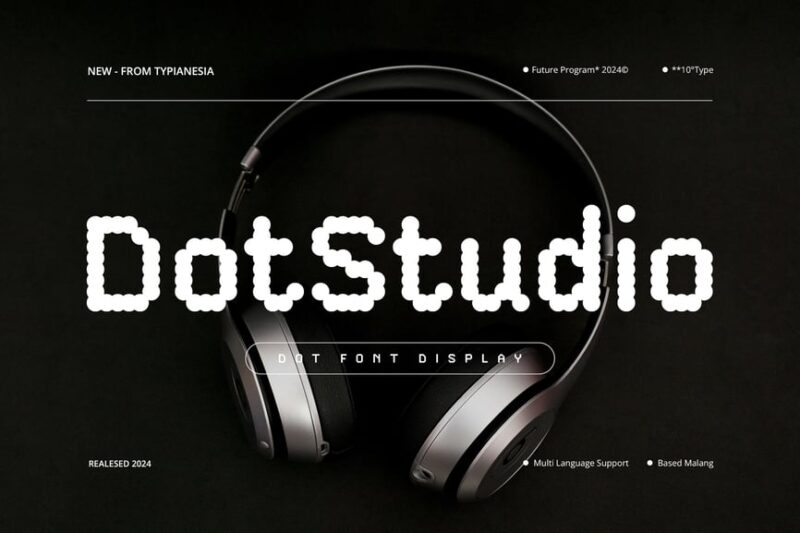
DotStudio is a cutting-edge Dot Font that embodies the essence of digital futurism. This sans-serif typeface features a unique blend of digital aesthetics and dotted elements, making it perfect for tech-savvy designers seeking a modern, forward-thinking look.
Flight
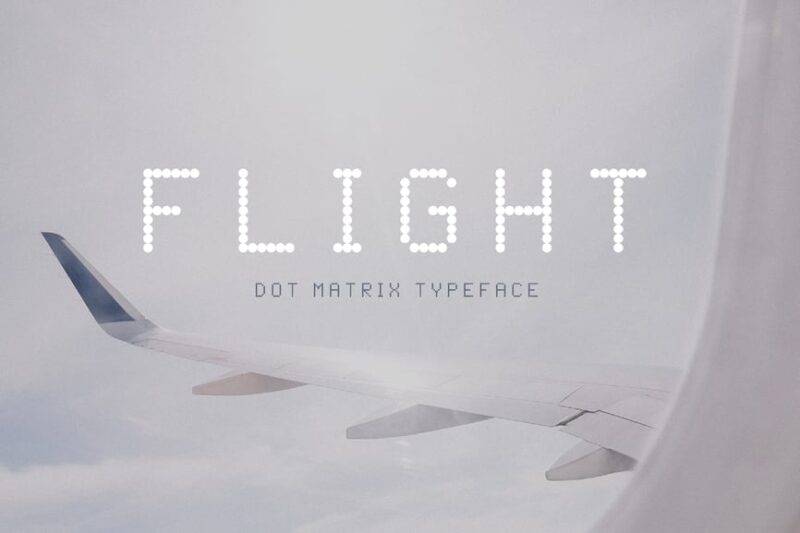
Flight is a versatile Dot Font that captures the essence of travel and movement. This dot matrix typeface offers a decorative touch with its dotted elements, making it ideal for projects that require a sense of journey or technological flair.
Belmein Disco
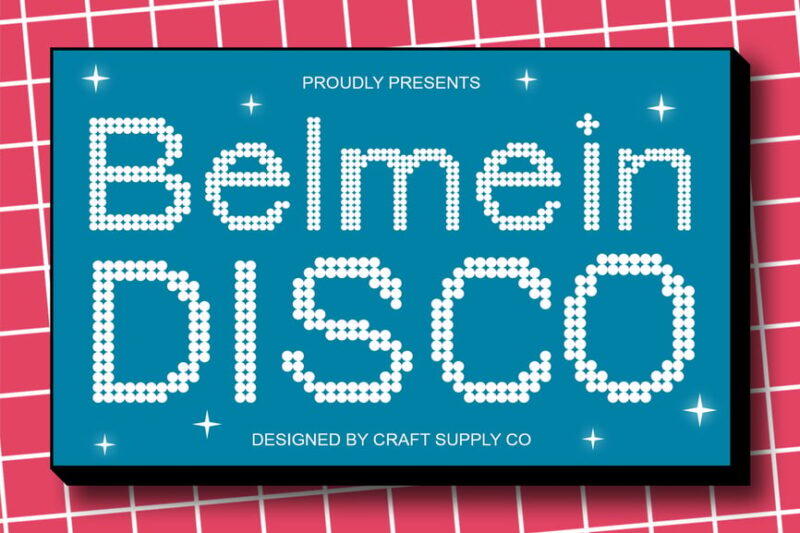
Belmein Disco is a lively Dot Font that brings the energy of the disco era to your designs. With its decorative dotted elements, this typeface is perfect for creating eye-catching headlines and retro-inspired graphics that demand attention.
Visage Polka Dot
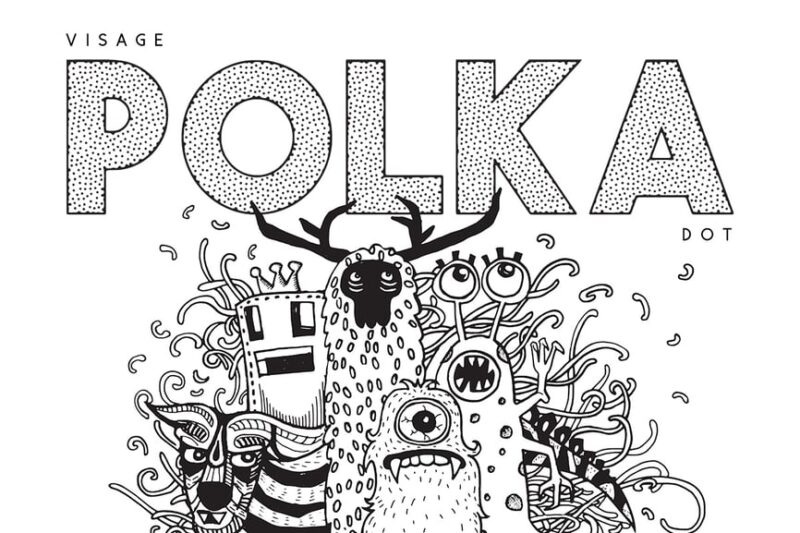
Visage Polka Dot is a playful sans-serif Dot Font that combines modern design with a touch of whimsy. This decorative typeface features polka dot elements, making it an excellent choice for designers looking to add a fun, approachable feel to their projects.
Alvera
Alvera is a sophisticated Dot Font that brings a touch of elegance to the world of dot-matrix typography. This sans typeface offers a unique blend of pixelated and matrix-inspired elements, perfect for designers seeking a modern, tech-savvy aesthetic.
Ponkadought
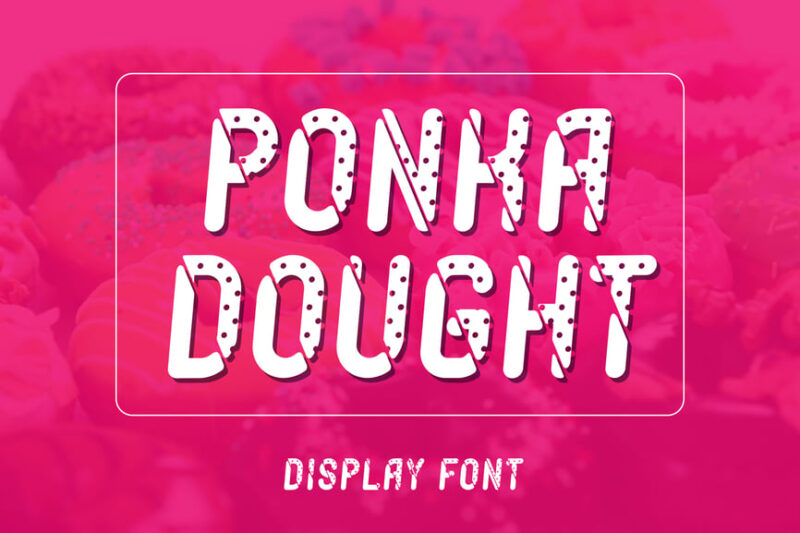
Ponkadought is a delightful Dot Font that adds a sweet touch to your designs. This sans-serif display typeface features playful dotted elements reminiscent of ice cream toppings, making it perfect for food-related projects or designs that require a fun, approachable feel.
BORSE
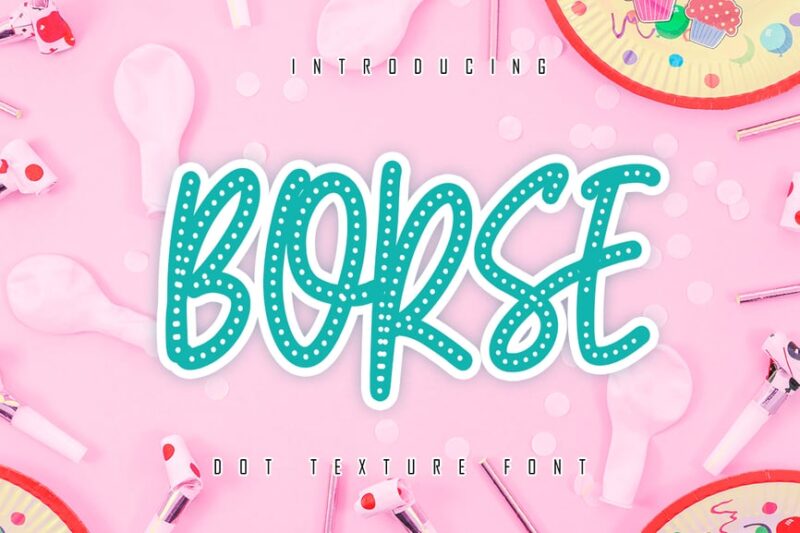
BORSE is a versatile Dot Font that combines display, script, and sans-serif styles. This decorative typeface features dotted elements that add a unique touch to branding projects, making it an excellent choice for designers looking to create memorable logos and headlines.
Halftone Sans
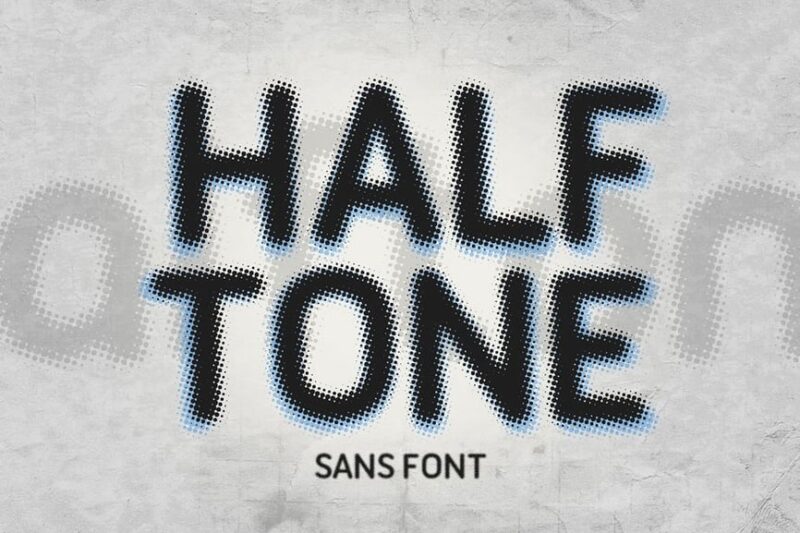
Halftone Sans is a striking Dot Font that brings the classic halftone effect to typography. This sans-serif typeface features dotted elements that create a unique visual texture, perfect for designers looking to add depth and intrigue to their projects.
Bengal Disco
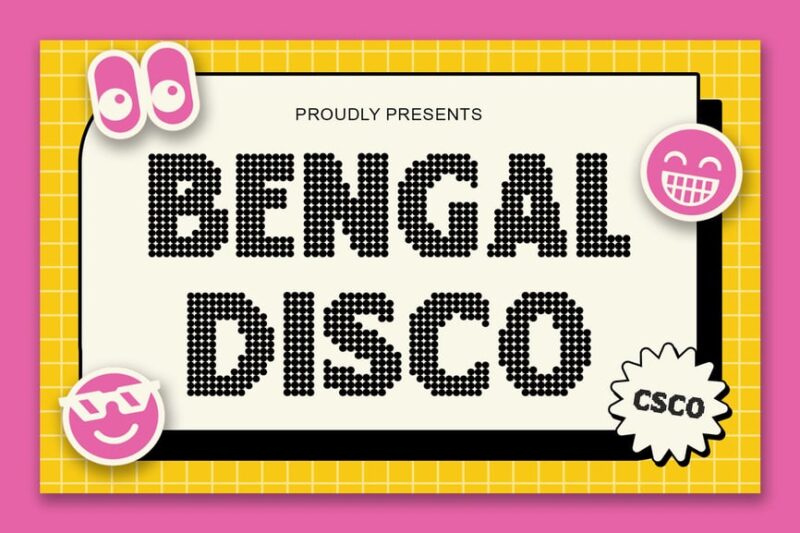
Bengal Disco is a vibrant Dot Font that captures the essence of disco culture. This decorative typeface features dotted elements that create a sense of movement and energy, making it ideal for projects that require a bold, retro-inspired look.
Dotrix
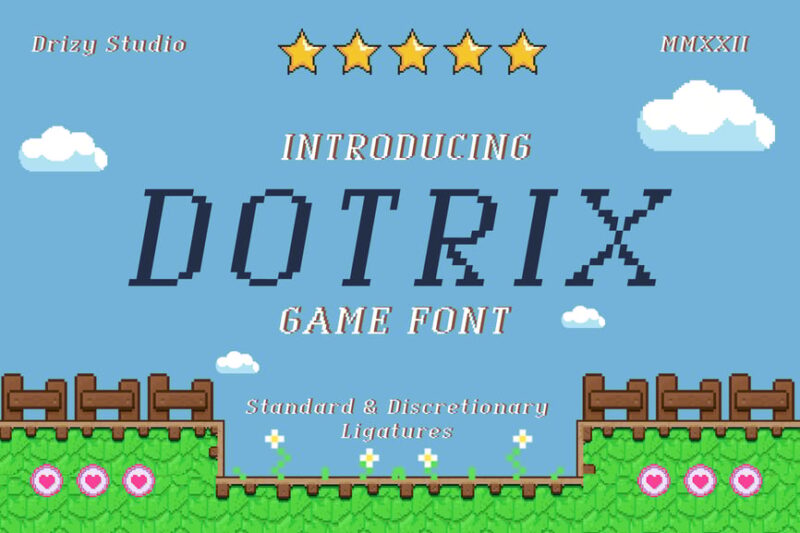
Dotrix is a unique Dot Font that brings a touch of retro gaming to modern design. This serif typeface features dotted elements inspired by 8-bit graphics, making it perfect for designers looking to add a nostalgic, tech-inspired feel to their projects.
Pixel Bit
Pixel Bit is a cutting-edge Dot Font that embodies the future of digital typography. This sans-serif display typeface features pixelated elements and geometric shapes, making it ideal for designers seeking a modern, tech-forward aesthetic in their projects.
Capsplay
Capsplay is a dynamic Dot Font that brings a futuristic flair to your designs. This sans-serif typeface combines pixelated elements with a neon-inspired look, perfect for creating eye-catching headlines and graphics with a modern, tech-savvy edge.
Bafline Disco
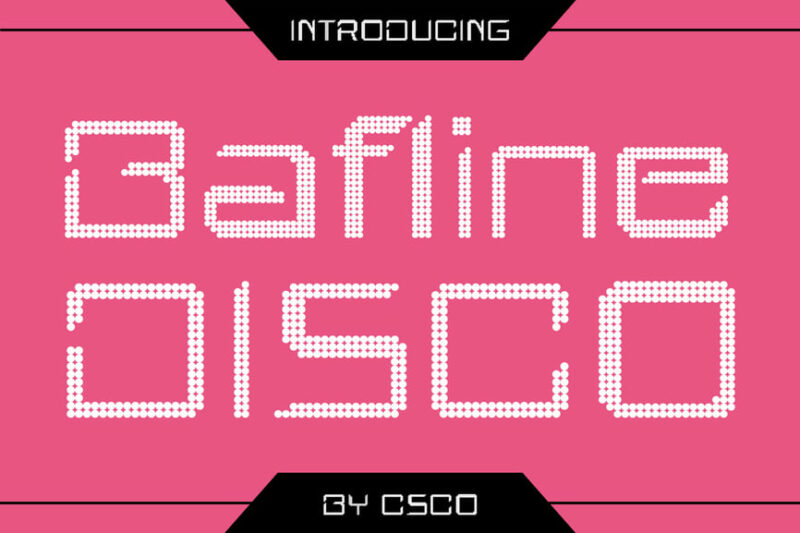
Bafline Disco is a striking Dot Font that combines the energy of disco with a modern neon aesthetic. This decorative typeface features dotted elements that create a unique visual texture, ideal for designers looking to add a touch of retro-futurism to their projects.
Briallen Disco
Briallen Disco is a dynamic Dot Font that brings the essence of digital timekeeping to typography. This decorative typeface features dotted elements inspired by digital clock displays, making it perfect for designs that require a modern, tech-inspired look.
Bartine Disco
Bartine Disco is a nostalgic Dot Font that captures the spirit of retro disco culture. This decorative typeface features dotted elements that create a sense of movement and energy, ideal for designers looking to add a touch of vintage flair to their projects.
Neo Rizon
Neo Rizon is a bold Dot Font that combines 8-bit aesthetics with neon-inspired design. This modern display typeface features expanded characters and dotted elements, making it perfect for creating eye-catching headlines and graphics with a futuristic edge.
Alavine Disco
Alavine Disco is a vibrant Dot Font that brings a digital twist to disco-inspired typography. This decorative typeface features dotted elements that create a unique visual texture, ideal for designers looking to add a touch of retro-futurism to their projects.
Arbane Disco
Arbane Disco is a striking Dot Font that combines marquee-style typography with 3D effects. This decorative typeface features dotted elements that create depth and dimension, perfect for designers looking to create eye-catching logos and headlines with a disco-inspired flair.
Arshine Disco
Arshine Disco is a bold Dot Font that brings a punk edge to disco-inspired typography. This decorative typeface features dotted elements and a modern take on the Neue Haas style, making it ideal for designers looking to create edgy, attention-grabbing designs.
Roinert
Roinert is a futuristic Dot Font that embodies the essence of industrial design. This decorative typeface features dotted elements that create a unique visual texture, perfect for designers looking to add a touch of sci-fi or tech-inspired aesthetics to their projects.
Ascella Disco
Ascella Disco is a lively Dot Font that captures the energy of party culture. This decorative typeface features dotted elements that create a sense of movement and excitement, making it ideal for designers working on logos and graphics for event-related projects.
Albercio Disco
Albercio Disco is a vibrant Dot Font that brings the spirit of nightclub culture to typography. This decorative typeface features dotted elements that create a unique visual rhythm, perfect for designers looking to add a touch of disco flair to their projects.
Alvinus Disco
Alvinus Disco is a dynamic Dot Font that combines digital clock aesthetics with disco-inspired design. This decorative typeface features dotted elements that create a sense of technological precision, ideal for designers seeking a retro-futuristic look in their work.
Brendie Disco
Brendie Disco is a whimsical Dot Font that adds a touch of fantasy to disco-inspired typography. This decorative typeface features playful dotted elements, making it perfect for designers looking to create eye-catching headlines and graphics with a fun, imaginative twist.
Balthis Disco
Balthis Disco is an eye-catching Dot Font that demands attention with its unique design. This decorative typeface features bold dotted elements that create a striking visual impact, ideal for designers looking to make a statement in their disco-inspired projects.
Calben Disco
Calben Disco is a dynamic Dot Font that brings a glitch-inspired aesthetic to band typography. This decorative typeface features distorted dotted elements, making it perfect for designers working on music-related projects or seeking to add an edgy, digital feel to their designs.
Brivane Disco
Brivane Disco is a sleek Dot Font that combines digital precision with disco flair. This decorative typeface features carefully crafted dotted elements, ideal for designers looking to create modern, tech-inspired graphics with a touch of retro charm.
Angeris Disco
Angeris Disco is a playful Dot Font that brings a sense of fun to disco-inspired typography. This decorative typeface features lively dotted elements, perfect for designers looking to add a touch of whimsy and energy to their projects.
Catelyn Disco
Catelyn Disco is a sophisticated Dot Font that adds a touch of elegance to digital-inspired serif typography. This decorative typeface features refined dotted elements, making it ideal for designers seeking to create a modern, tech-savvy look with a classic twist.
Bamboly Disco
Bamboly Disco is a bold Dot Font that makes a strong statement in disco-inspired design. This decorative typeface features prominent dotted elements, perfect for designers looking to create eye-catching headlines and graphics with a powerful, retro-futuristic feel.
Badoney Disco
Badoney Disco is a stylish Dot Font that brings a touch of sophistication to disco-inspired typography. This decorative typeface features elegant dotted elements, making it ideal for designers looking to create refined, yet eye-catching designs with a retro flair.
Bordie Disco
Bordie Disco is a nostalgic Dot Font that captures the essence of vintage retro design. This decorative typeface features dotted elements that evoke a sense of nostalgia, perfect for designers looking to create authentic, disco-inspired graphics with a timeless appeal.
Laveda Disco
Laveda Disco is a melodic Dot Font that brings musical inspiration to logo design. This decorative typeface features rhythmic dotted elements, making it ideal for designers working on music-related projects or seeking to add a harmonious touch to their disco-inspired creations.
Ansela Disco
Ansela Disco is a vibrant sans-serif Dot Font that embodies the energy of disco culture. This typeface features lively dotted elements that create a sense of movement and excitement, perfect for designers looking to add a bold, dynamic touch to their projects.
Redika Disco
Redika Disco is a striking Dot Font that brings a 3D twist to logo design. This decorative typeface features dimensional dotted elements, making it ideal for designers looking to create eye-catching, disco-inspired logos and graphics with depth and visual impact.
Ravio Disco
Ravio Disco is a dynamic Dot Font that captures the essence of DJ culture. This decorative typeface features energetic dotted elements and 3D-inspired effects, perfect for designers working on music-related projects or seeking to create bold, attention-grabbing logos.
Belony Disco
Belony Disco is a luminous Dot Font that brings the glow of neon lights to party-inspired typography. This decorative typeface features vibrant dotted elements, making it ideal for designers looking to create eye-catching graphics with a festive, disco-inspired atmosphere.
Calley Disco
Calley Disco is a tech-savvy Dot Font that brings a modern edge to logo design. This decorative typeface features innovative dotted elements, perfect for designers working on technology-related projects or seeking to create cutting-edge, disco-inspired logos with a futuristic feel.
The History Behind Dot Fonts
Dot fonts have a fascinating origin story that spans multiple industries and technologies. Their roots trace back to several key developments:
Early Printing Technology: Before modern printing, halftone techniques used dots of varying sizes to create the illusion of continuous tone in printed images. This same principle influenced early typographic experimentation.
Digital Display Limitations: In the early days of digital displays – think LED scoreboards, airport flight information boards, and the first computer monitors – dots were literally all designers had to work with. These technological constraints birthed iconic dot matrix fonts that defined an era.
Video Game Culture: Remember the chunky, pixelated text in classic arcade games? Those weren’t just technical limitations – they became an aesthetic. Fonts like those used in Space Invaders or Pac-Man created a visual language that still resonates today.
Newspaper and Magazine Printing: The halftone printing process used by newspapers created a distinctive dotted appearance that became synonymous with journalism and credibility.
What started as technical necessity has evolved into intentional design choice. Modern dot fonts often pay homage to these origins while pushing the concept in new, creative directions.
What Makes Dot Fonts So Appealing?
So what is it about dot fonts that keeps designers coming back? Several factors contribute to their enduring appeal:
Visual Texture: Dot fonts add an immediate sense of texture to designs. Even at smaller sizes, the stippled quality creates visual interest that solid fonts simply can’t match. Your eye naturally wants to linger on them.
Nostalgia Factor: For anyone who grew up in the 80s, 90s, or early 2000s, dot fonts trigger instant nostalgia. They harken back to early video games, digital clocks, and the dawn of personal computing. That emotional connection is powerful in design.
Tech Credibility: Dot fonts have an inherent “tech-forward” quality. They feel digital, precise, and systematic – perfect for brands in tech, gaming, data, or innovation-focused industries.
Uniqueness: Let’s be honest – everyone and their mother is using the same handful of trendy sans serifs. Dot fonts offer a way to stand out while maintaining excellent readability.
Scalability: Interestingly, many dot fonts actually scale quite well. The dot pattern can create a sort of natural anti-aliasing effect that looks crisp at various sizes.
Where to Use Dot Fonts (And Where to Avoid Them)
Like any specialized typeface, dot fonts shine in certain contexts and fall flat in others. Here’s where they work best:
Perfect Uses for Dot Fonts:
Tech and Gaming Brands: Dot fonts are a natural fit for technology companies, esports organizations, gaming studios, and software brands. They communicate innovation and digital expertise.
Retro Designs: Creating something with a vintage 80s or 90s vibe? Dot fonts are your secret weapon. They instantly transport viewers to the era of neon, arcade games, and early computing.
Data Visualization: The technical quality of dot fonts makes them excellent for infographics, charts, and data-heavy designs where you want to emphasize precision and accuracy.
Display Headers: Dot fonts make fantastic headline fonts. Use them in large sizes where the dot pattern becomes a design element itself, creating maximum visual impact.
Sports Graphics: The scoreboard association makes dot fonts perfect for sports-related designs, from team logos to ticket designs to stadium signage.
Editorial Design: Fashion magazines and design publications love using dot fonts for their textural quality and visual intrigue.
Where to Avoid Dot Fonts:
Body Text: This is the big one. Dot fonts are almost always a poor choice for paragraph text. The pattern becomes exhausting to read over multiple sentences, causing eye strain and frustration.
Small Print: At very small sizes, the dots can blur together or become illegible. Save dot fonts for applications where they’ll be displayed at readable sizes.
Formal Corporate Communication: Legal documents, formal proposals, and traditional corporate materials usually require more conservative typography. A dot font might undermine the serious tone you’re trying to establish.
Accessibility-Critical Applications: For designs that need to meet strict accessibility standards or serve users with visual impairments, the reduced clarity of dot fonts can be problematic.
How to Choose the Right Dot Font
With so many dot fonts available, how do you pick the perfect one for your project? Consider these factors:
Dot Size and Spacing: Larger dots with more spacing between them create a bolder, more playful effect. Smaller, tightly-packed dots read as more refined and sophisticated. Choose based on your design’s personality.
Complete or Outline: Do you want dots filling the entire letter shape, or just outlining it? Filled dot fonts feel more solid and traditional, while outline versions feel more delicate and modern.
Regularity: Perfectly uniform dots arranged in a grid create a technical, systematic feel. Irregular or hand-placed dots add organic warmth and personality.
Weight Options: Just like traditional fonts, some dot fonts come in multiple weights. Having options from light to bold gives you more flexibility in your designs.
Character Set: Make sure your chosen dot font includes all the characters you need – numbers, punctuation, special characters, and any international letters required for your project.
Pairing Dot Fonts With Other Typefaces
Dot fonts rarely work alone. Here’s how to pair them effectively:
The Classic Combo: Use a dot font for headlines and a clean, simple sans serif (like Helvetica, Open Sans, or Inter) for body text. This creates hierarchy while maintaining readability.
Double Down on Tech: Pair a dot font with a monospace font for maximum tech credibility. This combination screams “digital” and works beautifully for coding-related content or tech brands.
Retro Remix: Combine a dot font with other vintage-inspired typefaces – think chunky slab serifs or groovy 70s scripts. This amplifies the nostalgic effect.
Elegant Contrast: Create tension by pairing a technical dot font with an elegant serif like Garamond or a sophisticated script. This unexpected combination can be stunning in editorial design.
Keep It Simple: When in doubt, let the dot font be the star. Choose understated, neutral supporting typefaces that won’t compete for attention.
Design Tips for Working With Dot Fonts
Ready to incorporate dot fonts into your work? Keep these pro tips in mind:
Size Matters: Dot fonts need room to breathe. Don’t be shy about going big – the larger the type, the more impressive the dot pattern becomes.
Color Choice: Dot fonts look fantastic in bold, saturated colors. They can also work beautifully in duotone or with gradient fills that play across the dot pattern.
Background Considerations: Make sure there’s enough contrast between your dot font and its background. The gaps between dots can create readability issues if the contrast is too low.
Spacing Adjustments: You may need to adjust letter spacing (tracking) more than you would with solid fonts. The dots can sometimes make letters feel cramped or too separated.
Test at Multiple Sizes: Always preview your dot font at the actual size it’ll be used. What looks perfect at poster size might be illegible at business card dimensions.
Animation Potential: Dot fonts are incredibly fun to animate. Each dot can move, pulse, or change color independently, creating mesmerizing motion graphics.
Dot Fonts in Modern Design Trends
Dot fonts aren’t stuck in the past – they’re evolving with contemporary design trends:
Variable Dot Density: Modern dot fonts are getting sophisticated, using varying dot sizes and densities to create depth, dimension, and even simulate 3D effects.
Color Dots: Some designers are creating dot fonts where each dot can be a different color, enabling rainbow effects or brand-specific color patterns.
Hybrid Styles: We’re seeing fonts that combine solid areas with dotted sections, or that use dots strategically to create unique visual effects.
Generative Design: Designers are using code to create custom dot fonts where the dot pattern is generated algorithmically, creating unique variations every time.
Free vs. Premium Dot Fonts
Should you invest in a premium dot font or stick with free options? Here’s the breakdown:
Free Dot Fonts: There are some excellent free dot fonts available, especially if you’re working on personal projects or have a limited budget. Sites like Google Fonts, Font Squirrel, and DaFont offer solid options.
However, free fonts often have limitations – fewer weights, incomplete character sets, or licensing restrictions for commercial use. Always read the license carefully.
Premium Dot Fonts: Investing in a premium dot font usually gets you better craftsmanship, more weight options, complete character sets, and clear commercial licensing. If you’re working on client projects or building a brand, premium fonts are worth the investment.
Premium dot fonts also tend to have better kerning, more refinement in the dot placement, and overall higher quality that shows in the final design.
Common Dot Font Mistakes to Avoid
Learn from others’ mistakes:
Using Them for Body Copy: I can’t stress this enough – dot fonts are for display use only. Your readers will thank you for not making them wade through paragraphs of dotted text.
Ignoring Readability: Just because a dot font looks cool doesn’t mean it’s readable. Always test legibility before committing to a design.
Overuse: Dot fonts are like hot sauce – a little goes a long way. Use them as accents and focal points, not on every element of your design.
Poor Size Choices: Using dot fonts too small makes them look muddy. Too large and they can feel overwhelming. Find the sweet spot through testing.
Clashing Aesthetics: Make sure your dot font matches your overall design direction. A retro 8-bit dot font won’t work in an elegant wedding invitation (unless you’re going for ironic, which is a whole different conversation).
Dot Fonts in Different Industries
Tech Startups: Dot fonts help tech companies look innovative and forward-thinking. They’re particularly popular in AI, data analytics, and cybersecurity branding.
Gaming: From mobile games to major esports organizations, dot fonts tap into gaming’s digital roots while looking contemporary and exciting.
Sports: The scoreboard connection makes dot fonts natural for sports teams, athletic brands, and sporting events.
Fashion: High-fashion brands use dot fonts to add an unexpected technical edge to editorial spreads and advertising campaigns.
Music: Electronic music artists and festivals frequently use dot fonts to convey their digital, futuristic sound.
Creating Your Own Dot Font
Feeling ambitious? Creating a custom dot font is actually more accessible than you might think:
Font creation software like FontForge (free) or Glyphs (premium) makes it possible to design your own dot fonts. Start by sketching your letterforms, then place dots strategically to form each character.
The key is consistency – maintain the same dot size, spacing pattern, and overall style across all letters. It’s painstaking work, but the result is a truly unique typeface that no one else has.
Alternatively, you can commission a type designer to create a custom dot font for your brand. This ensures professional quality while giving you exclusive rights to a distinctive typeface.
Common Questions About Dot Fonts
Are dot fonts readable?
At display sizes (headlines, titles, logos), yes! The human eye is remarkably good at connecting the dots (literally) to perceive complete letterforms. However, at small sizes or in body text, dot fonts become difficult to read and should be avoided.
Can I use dot fonts for my logo?
Absolutely, as long as your logo will primarily be used at sizes where the dots remain clear and recognizable. Consider how your logo will look at small sizes – like on a business card or mobile app icon – before committing to a dot font.
Do dot fonts work in print?
Yes! In fact, dot fonts can look fantastic in print, especially at larger sizes where the dot pattern creates interesting texture on paper. Just ensure your printer’s resolution is high enough to render the dots clearly.
Are dot fonts accessible?
Dot fonts can present accessibility challenges. The reduced clarity compared to solid fonts may be difficult for users with visual impairments. If accessibility is critical, use dot fonts sparingly and always provide alternative text or ensure sufficient contrast and size.
What’s the difference between dot fonts and pixelated fonts?
Pixelated fonts are made up of square pixels arranged in a grid, while dot fonts use circular dots. Pixelated fonts typically have a more angular, blocky appearance reminiscent of early computer graphics, while dot fonts can range from technical to organic depending on the dot arrangement.
The Future of Dot Fonts
Where are dot fonts headed? If current trends are any indication, we’re just scratching the surface:
AI-Generated Dot Patterns: Machine learning is enabling designers to create dot fonts with incredibly sophisticated patterns that would be impossible to place by hand.
Responsive Dot Density: Imagine fonts where the dot pattern adjusts based on viewing distance or screen size – tighter for small displays, more dramatic for large ones.
3D Dot Typography: We’re seeing experiments with dot fonts that exist in three-dimensional space, with dots placed at varying depths to create truly sculptural letterforms.
Interactive Dots: In web and app design, dots that respond to user interaction – pulsing, moving, or changing color on hover or click – are creating engaging typographic experiences.
The beauty of dot fonts is that they’re simultaneously retro and futuristic. They remind us where digital design came from while pointing toward where it’s going.
Conclusion: Making Your Mark With Dot Fonts
Dot fonts are more than just a stylistic choice – they’re a powerful design tool that can elevate your work from ordinary to extraordinary. Whether you’re channeling retro nostalgia, establishing tech credibility, or simply looking for something visually distinctive, the right dot font can make all the difference.
The key is using them thoughtfully. Reserve dot fonts for display purposes where they can shine – headlines, logos, posters, and other high-impact applications. Pair them with readable body fonts. Test them at actual size. And always, always prioritize your audience’s experience.
Remember, design trends come and go, but well-executed typography is timeless. Dot fonts have survived technological shifts from LED scoreboards to high-resolution displays because they offer something unique: a perfect marriage of technical precision and visual intrigue.
So go ahead, experiment with dot fonts in your next project. Whether you choose a subtle, sophisticated option or a bold, playful design, you’re working with a typographic tradition that spans decades while remaining thoroughly contemporary.
After all, sometimes the most impactful designs are made up of the smallest dots.